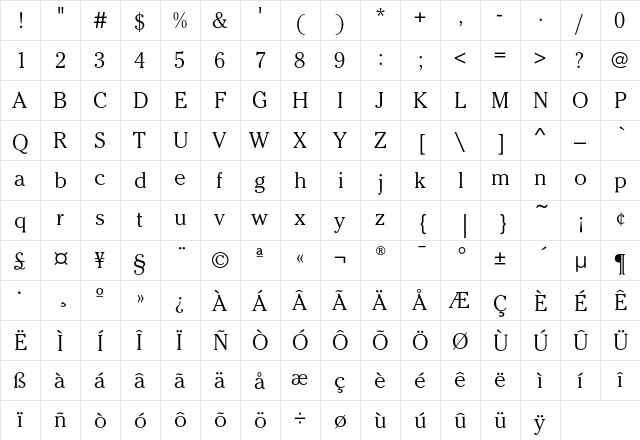
CheltenhamEF-Light Regular Font Preview
CheltenhamEF-Light Regular
Design Context for CheltenhamEF-Light Typeface
CheltenhamEF-Light offers clean, dependable letterforms without strong stylistic allegiance, making it a practical choice for designers who need flexibility. Its slender proportions lend an understated elegance to any composition.